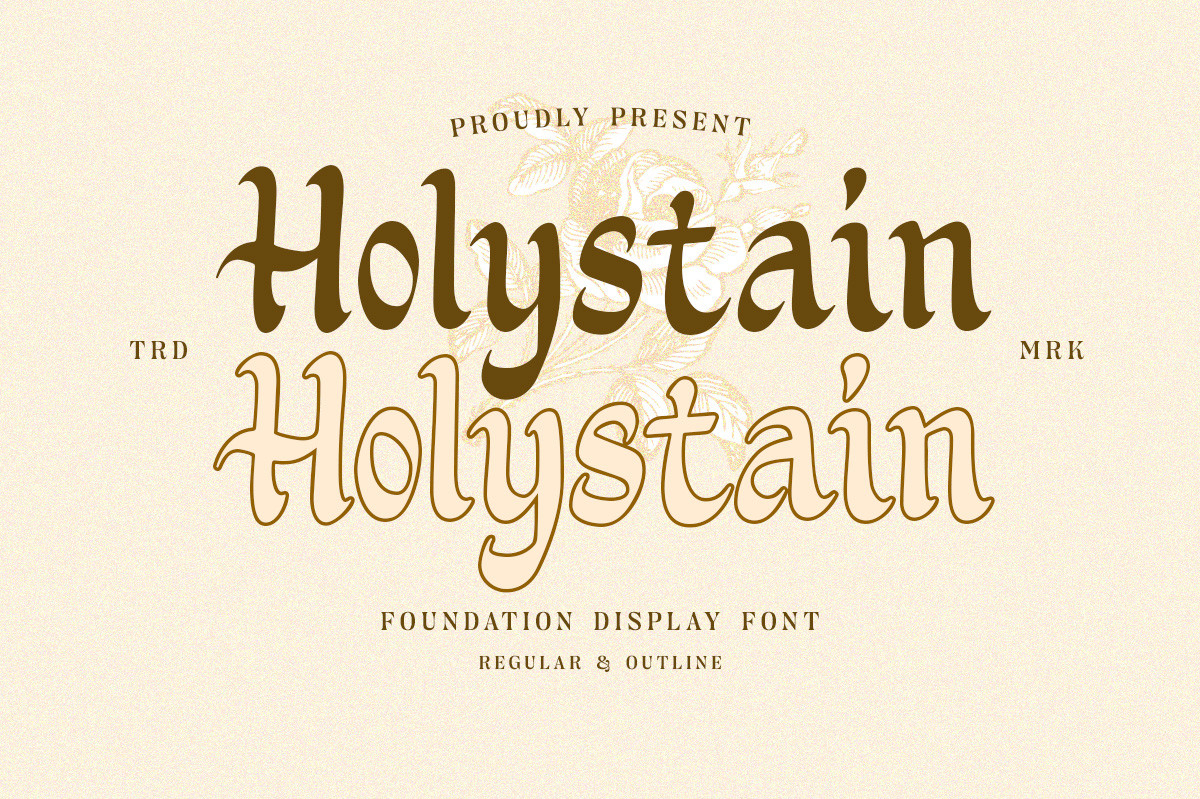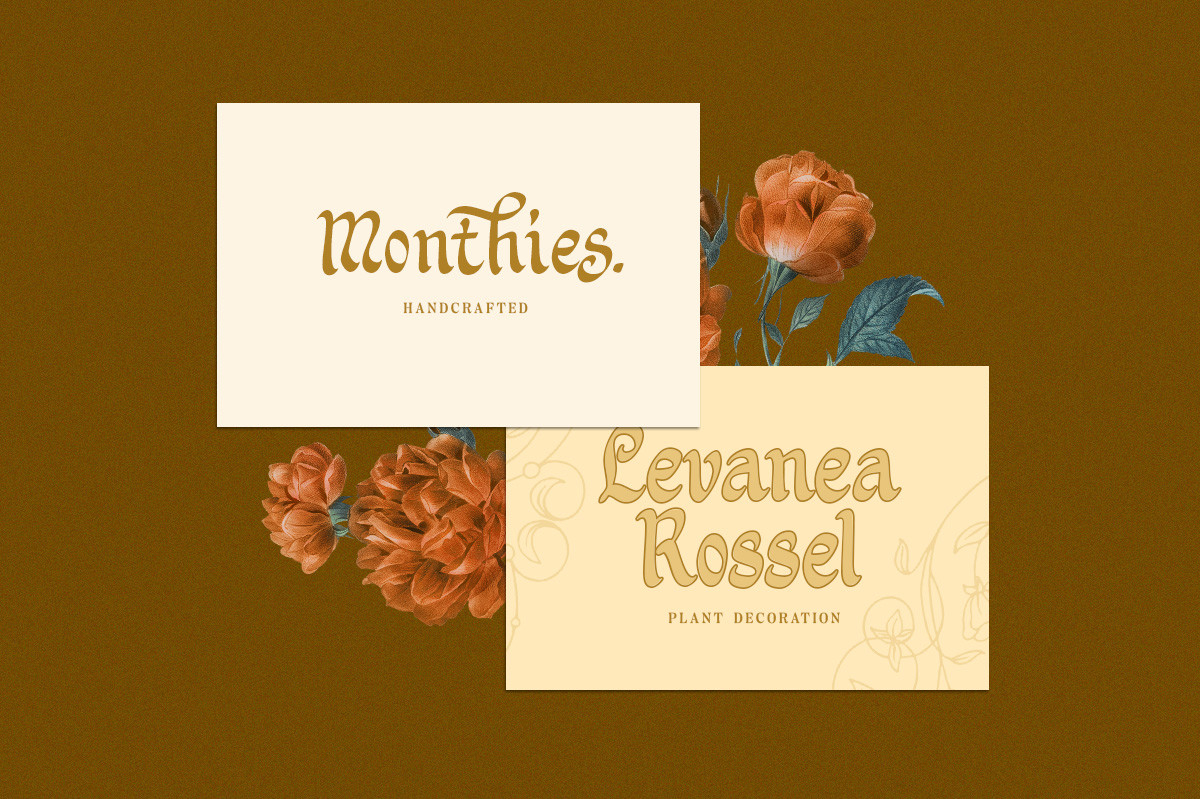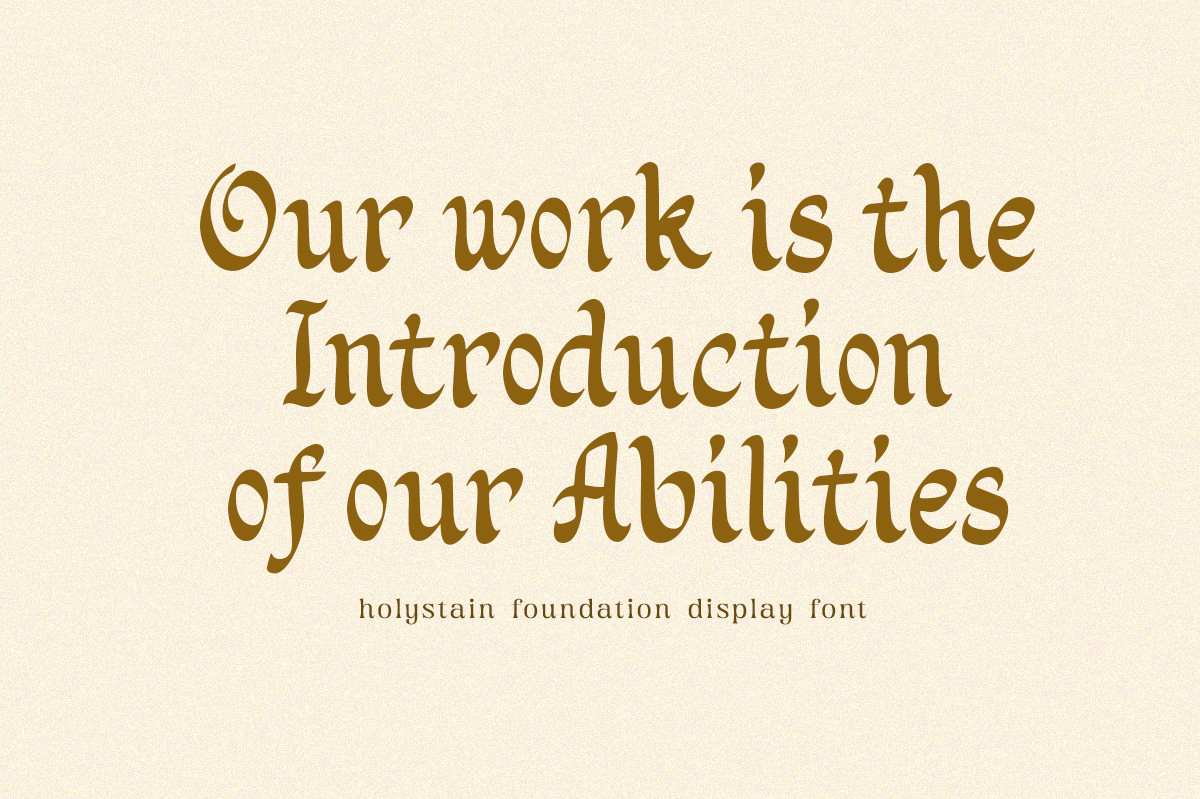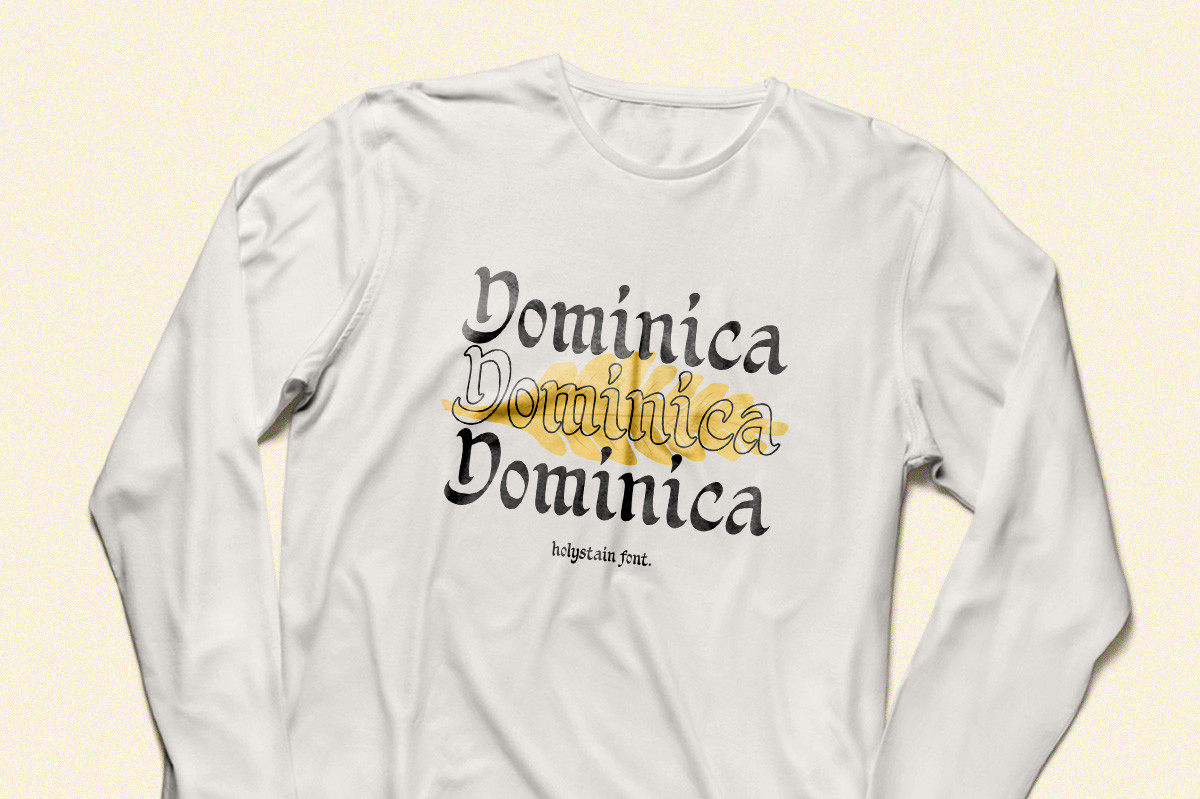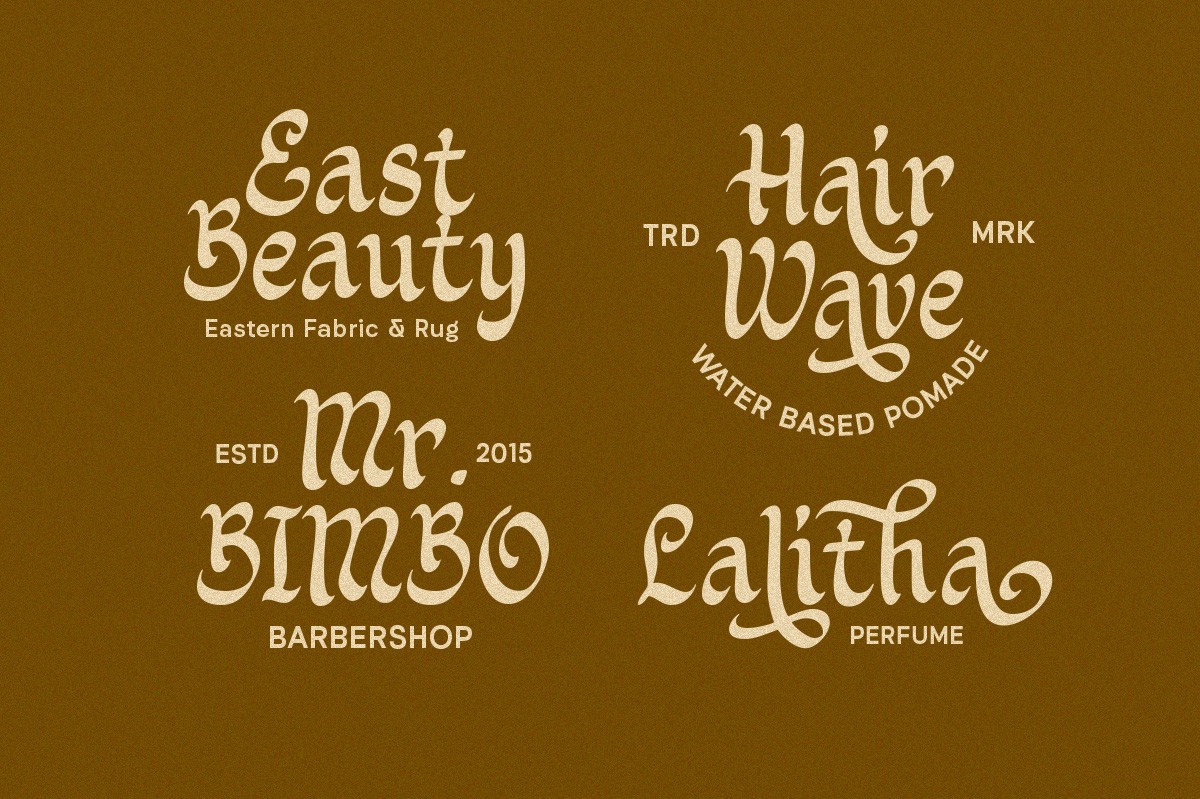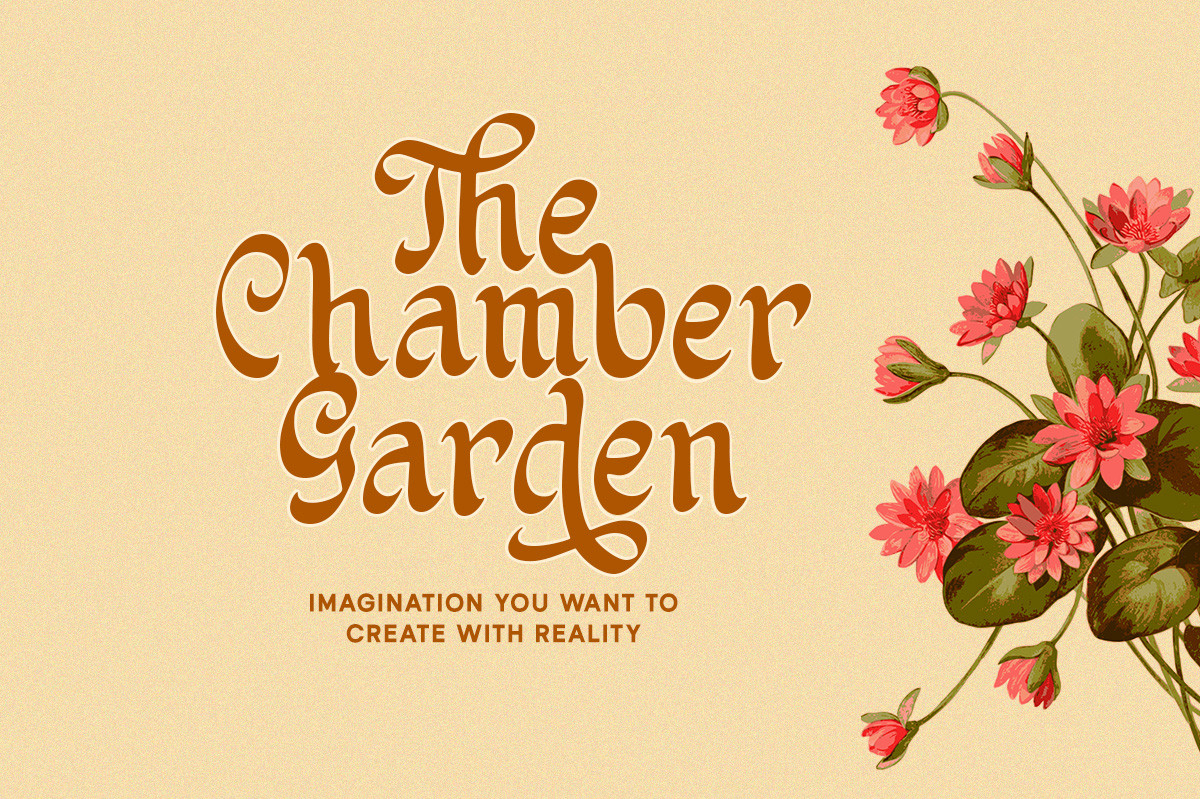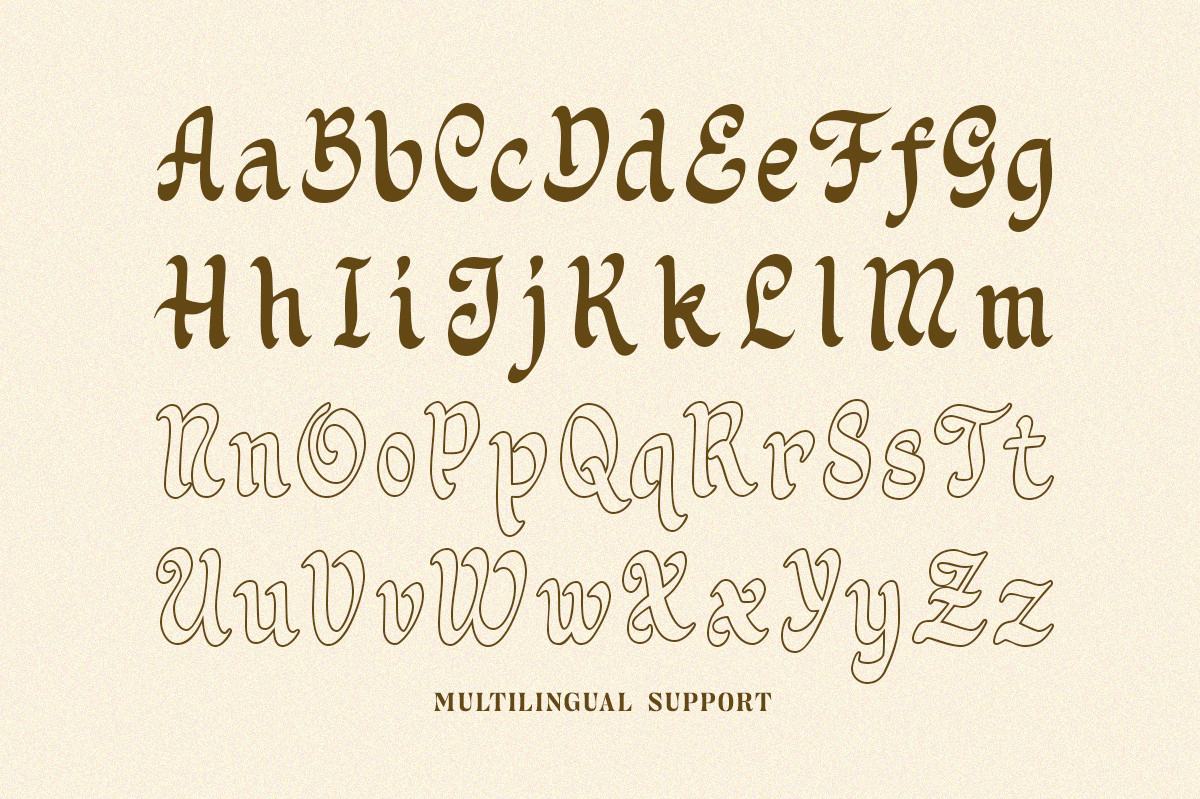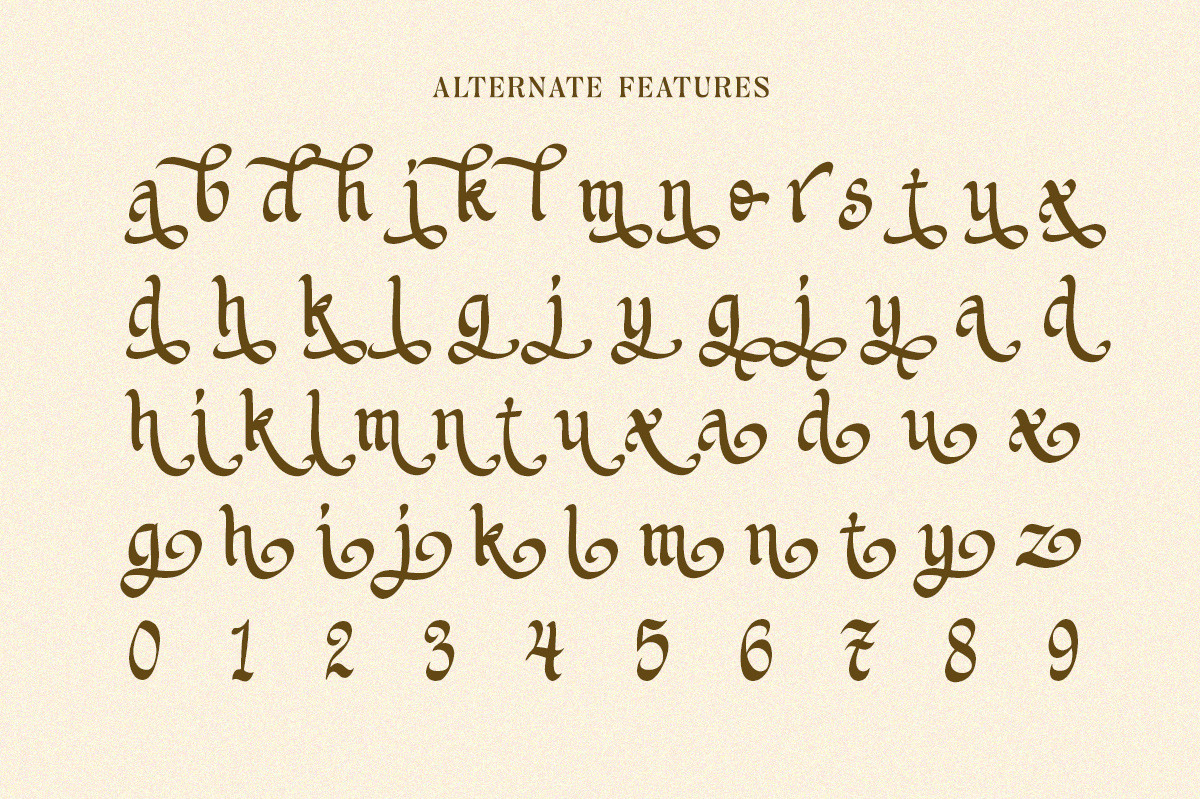
About Holystain Font
Holystain is a Foundation display font that perfectly balances sophistication and approachability. Its classic charm makes it perfect for more traditional designs, while its casual feel makes it good for modern design. This font is perfectly made to be applied especially in logos, and other various formal.